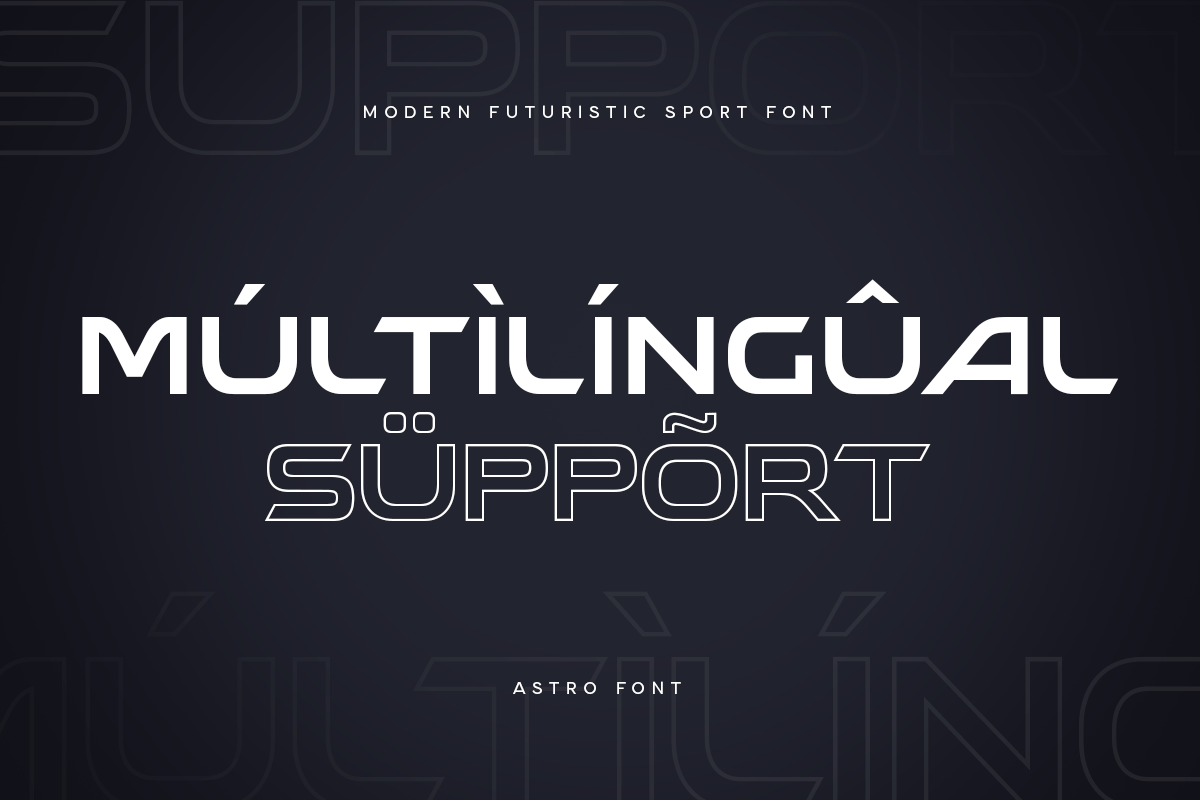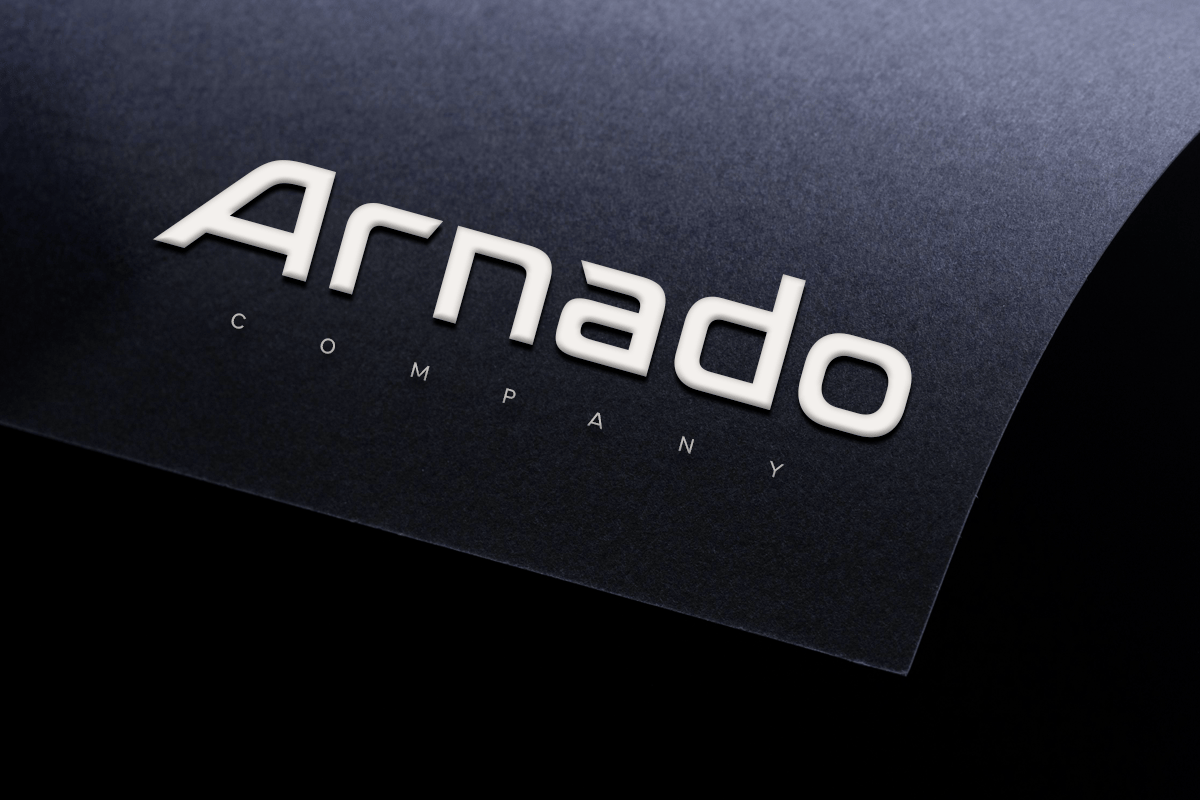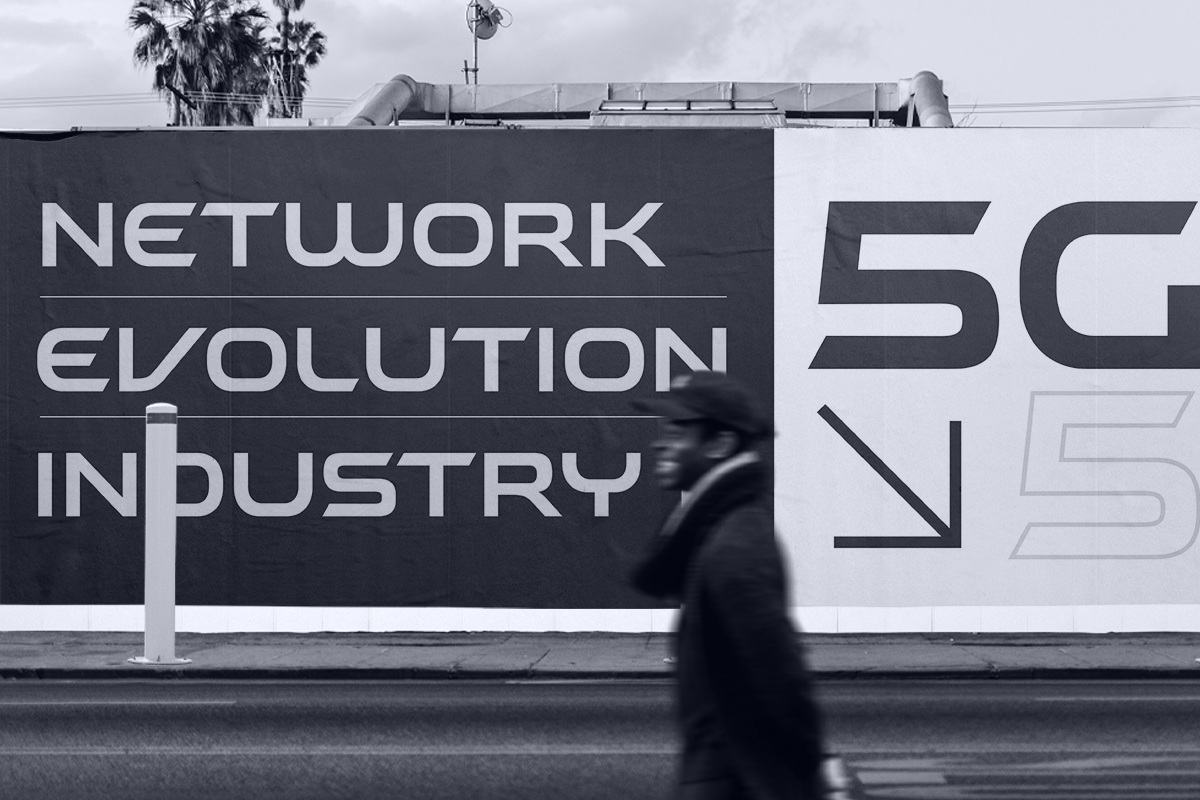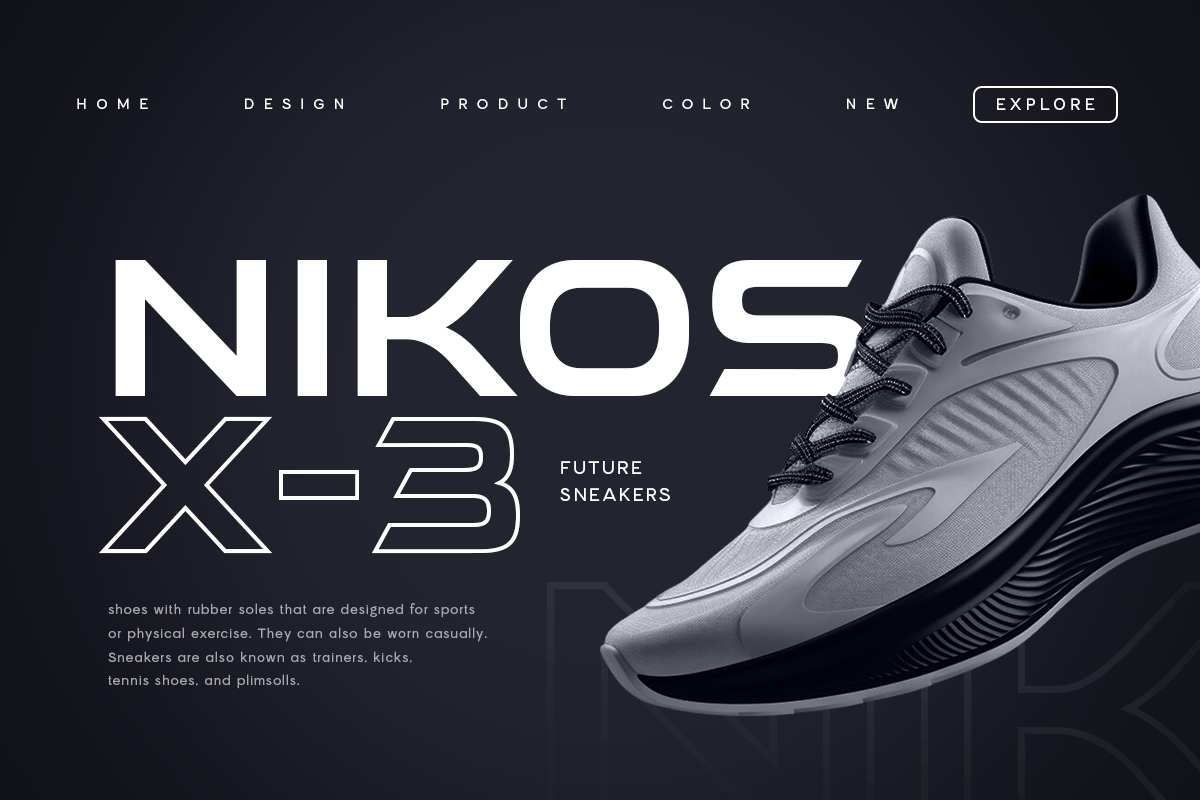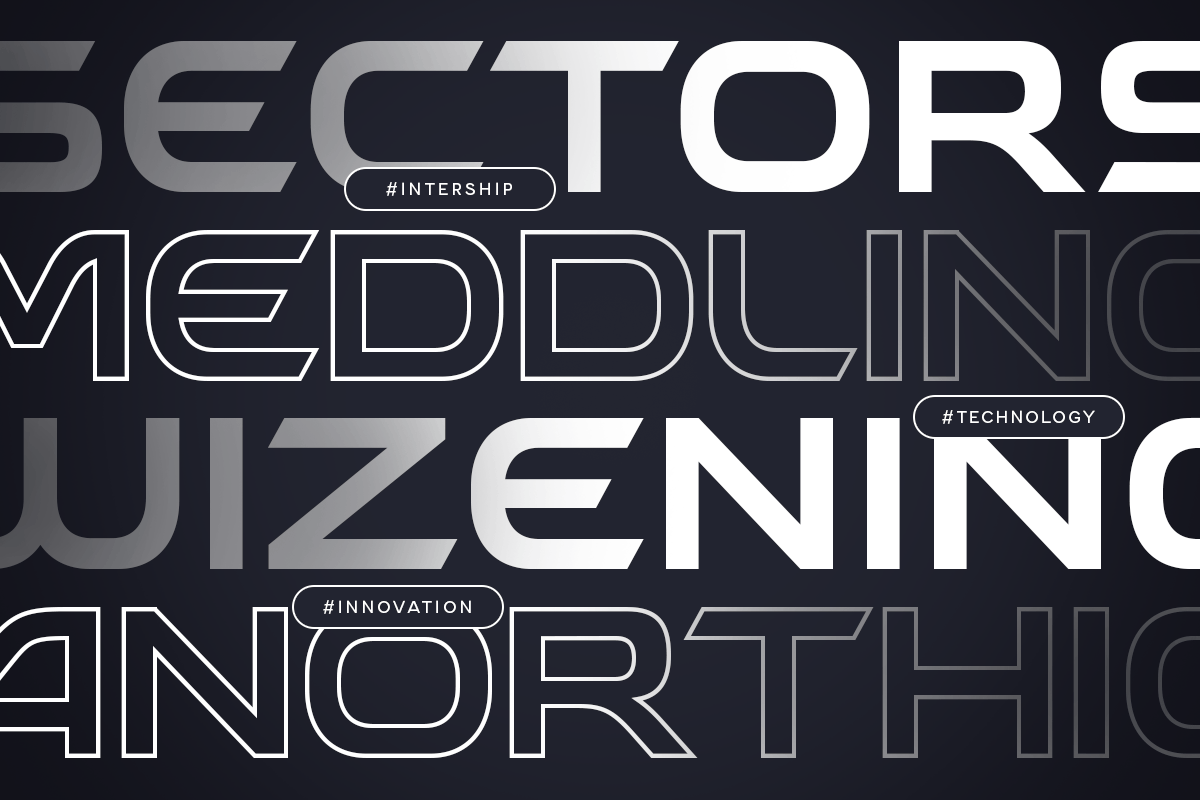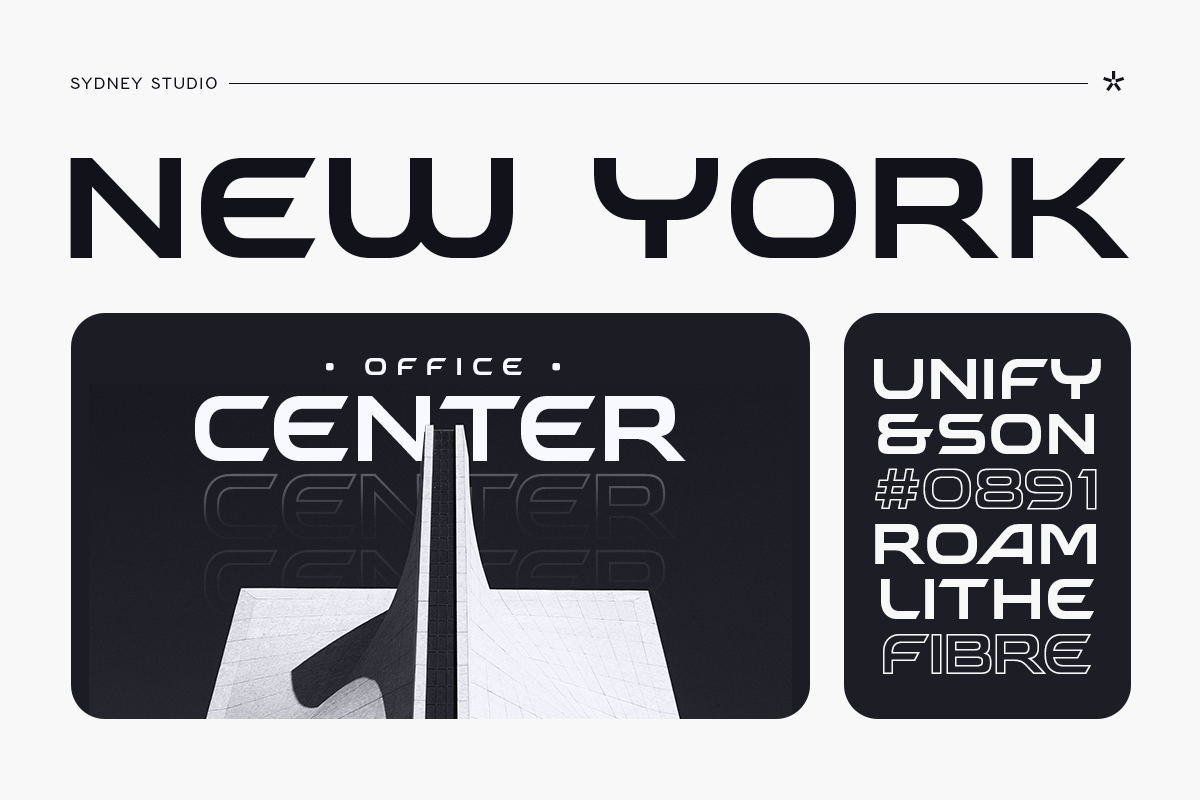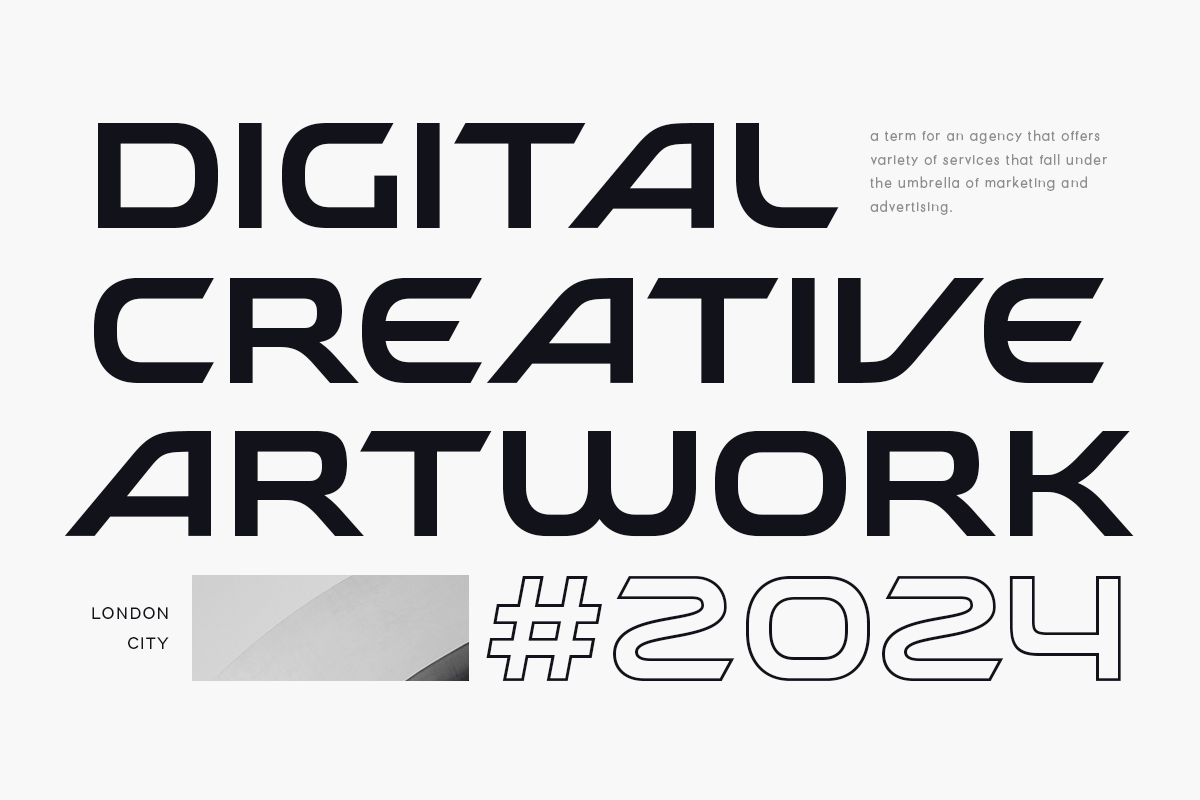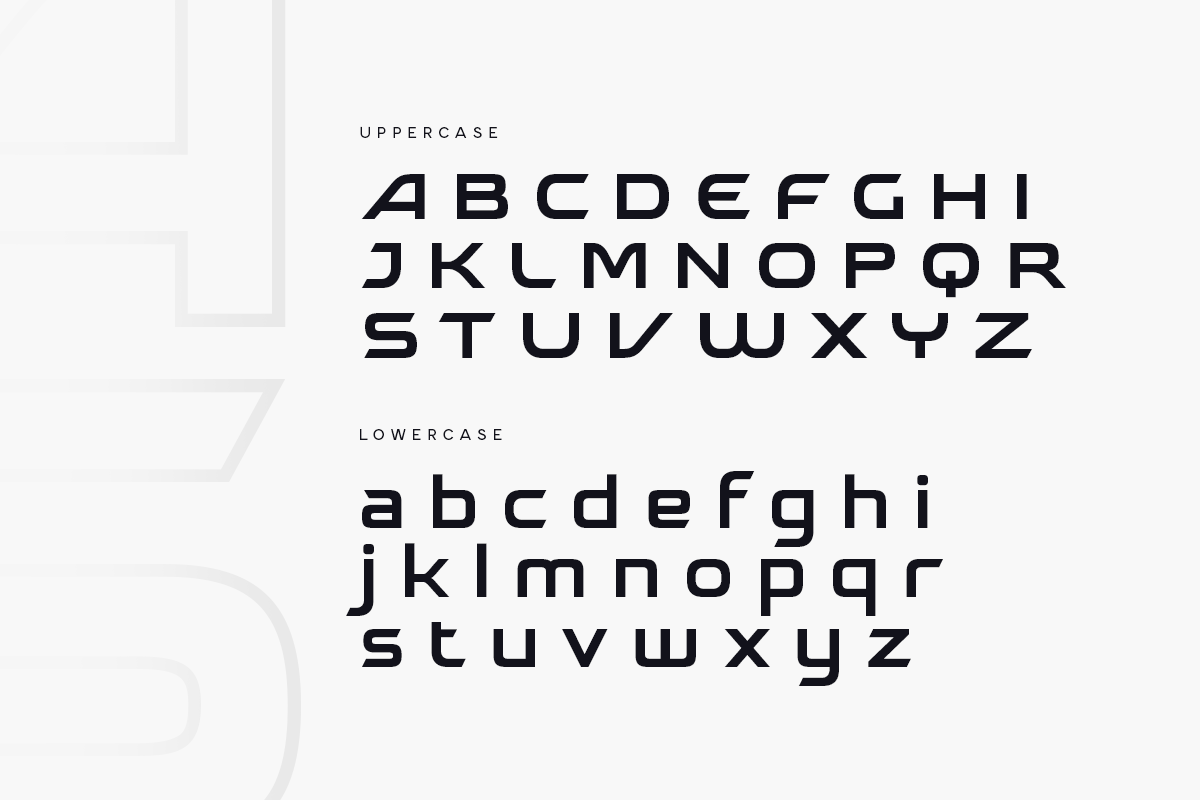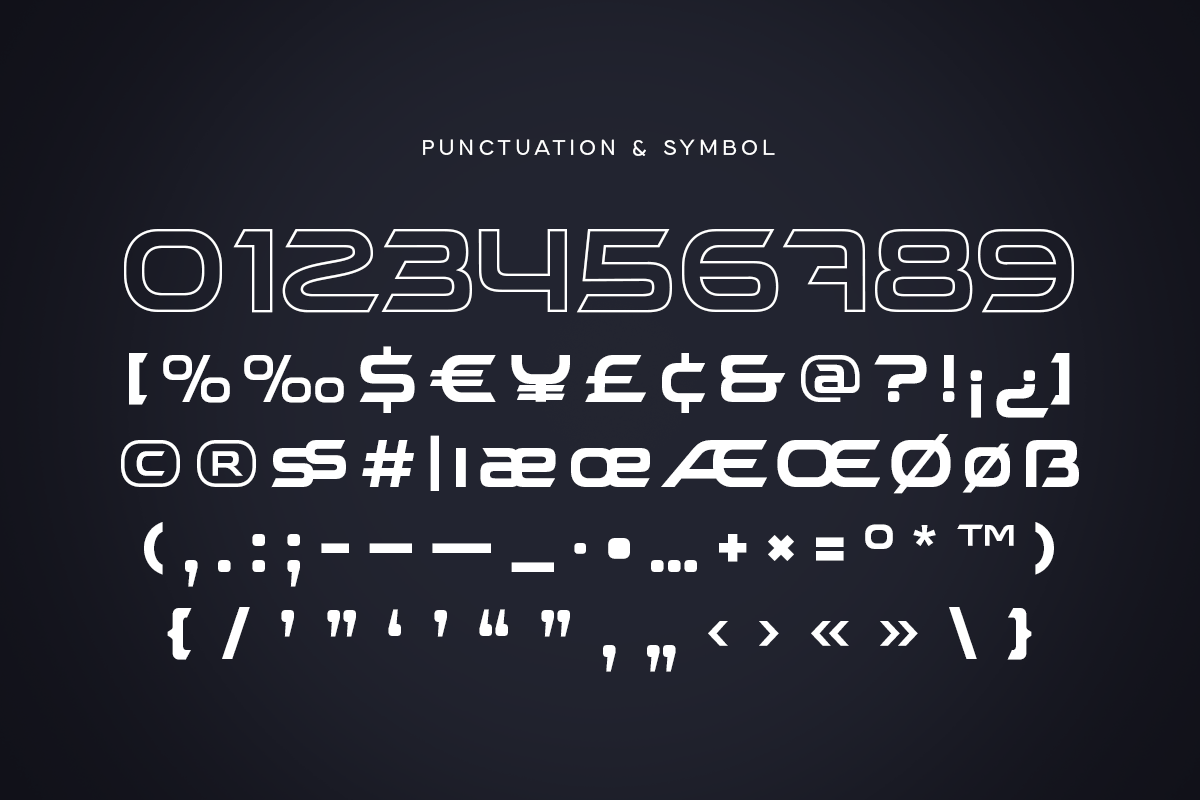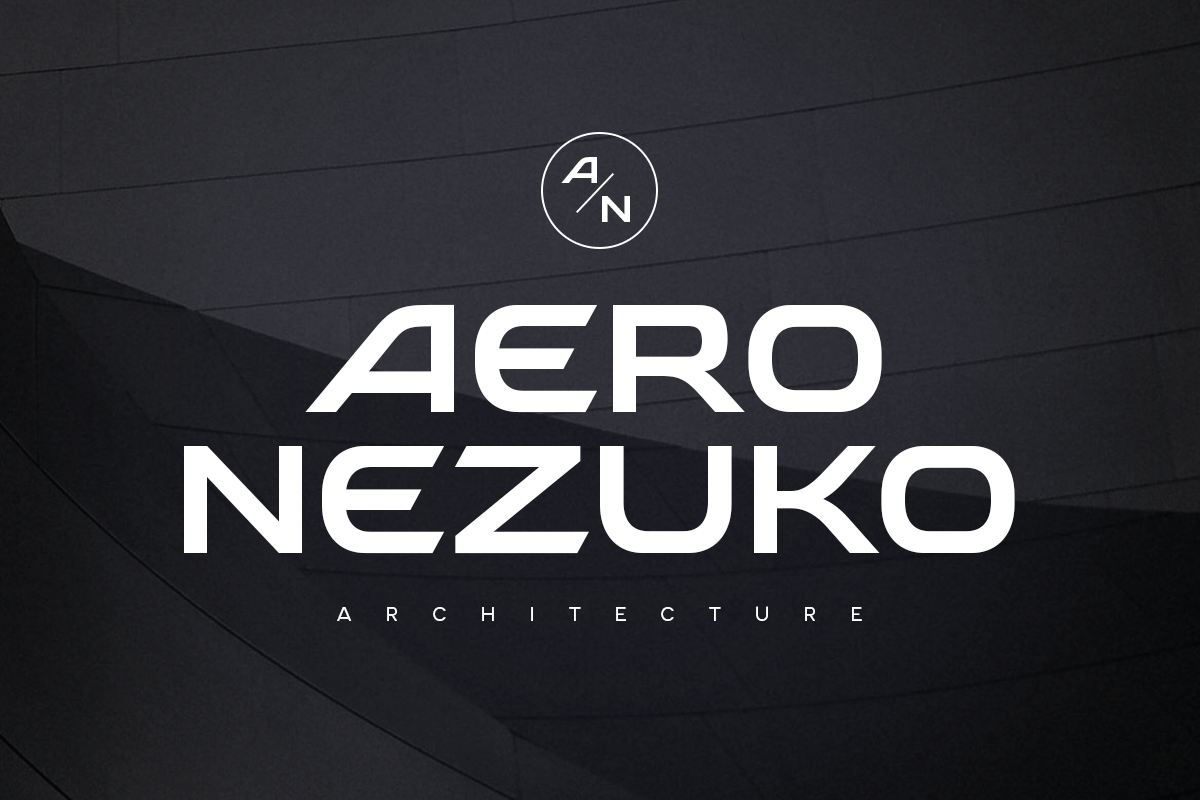
Astro – Modern Futuristic Sport Font
Astro is a Futuristic Sci-fi font that created special for Sci-fi, Modern, Technology and more stand out typography needs, with extra perfect styles that make your design more Futuristic. It’s so perfect to add your style and headline overview for Cryptocurrency, technology, film, and Sci-fi theme. And specially for this font, we crafted for modern style and technology feels so enjoy to create any project that will show your main idea out.
Astro Futuristic Sci-fi Font ready with:
- Futuristic characters prepared to get creative alternatives in Technology theme
- Ready with Technology characters